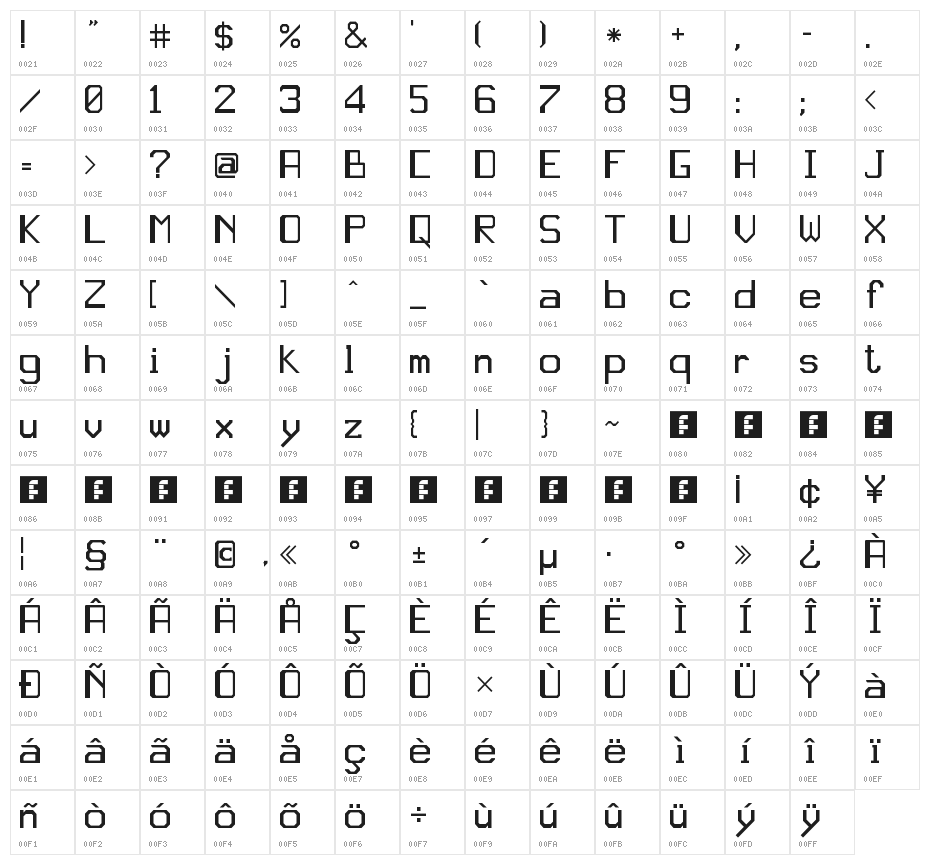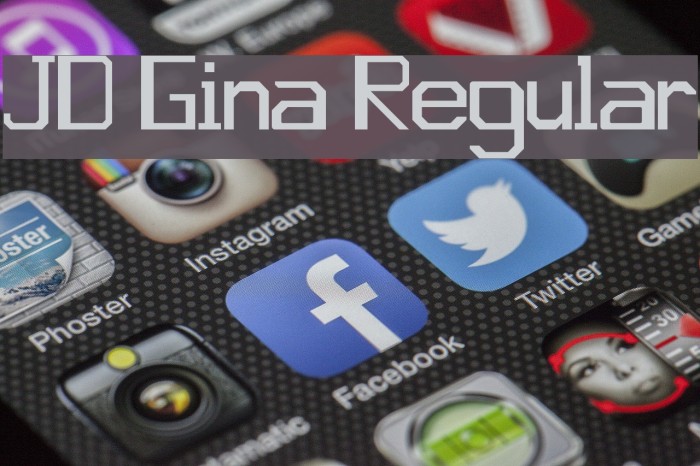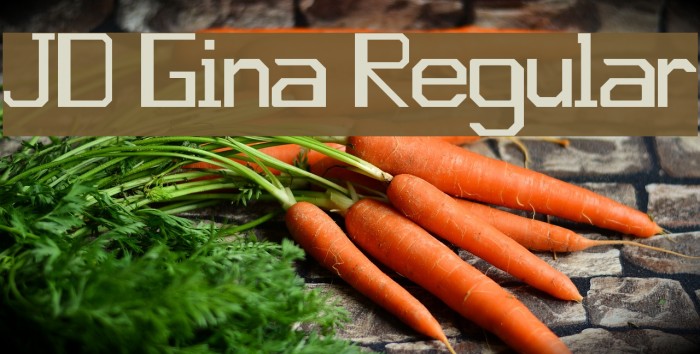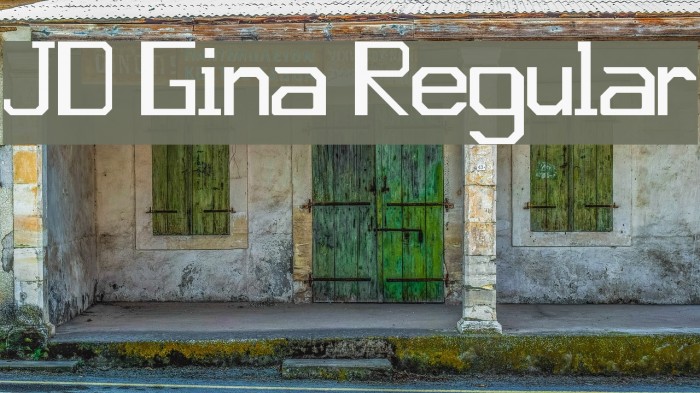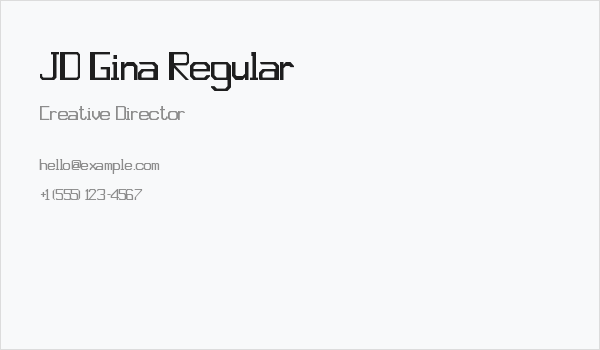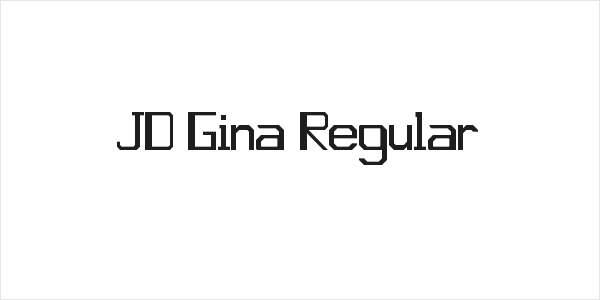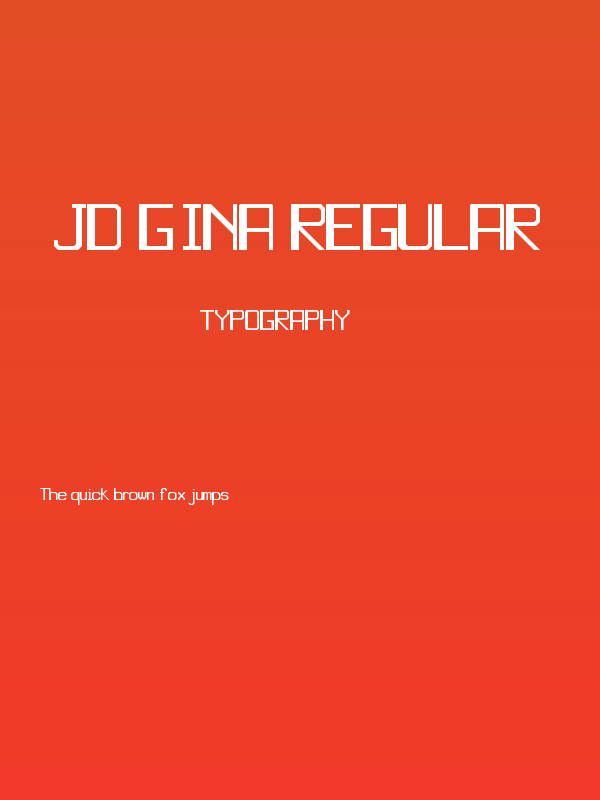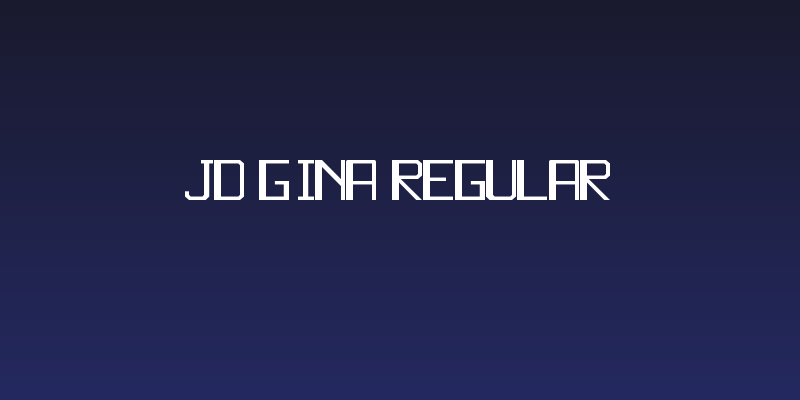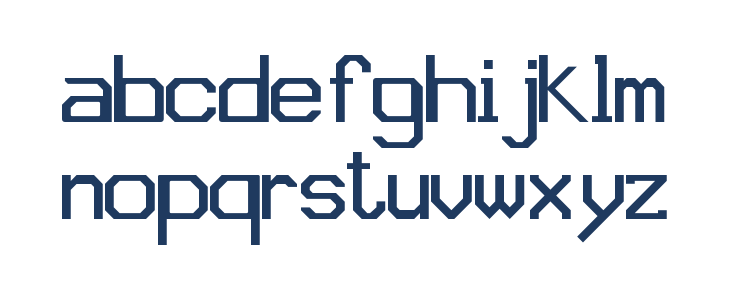
JD Gina Regular Font
JD Gina Regular Description
This font features a geometric and angular design, characterized by its sharp edges and clean lines. The uppercase letters are bold and structured, with a uniform height that creates a cohesive look. The lowercase letters maintain the angular theme, offering a unique twist on traditional letterforms. Numbers and special characters follow the same design principles, ensuring consistency throughout. The overall appearance is modern and slightly futuristic, making it suitable for projects that require a distinctive and contemporary aesthetic.
Proposed ProjectsIdeal for tech branding, modern posters, digital interfaces, and futuristic designs.